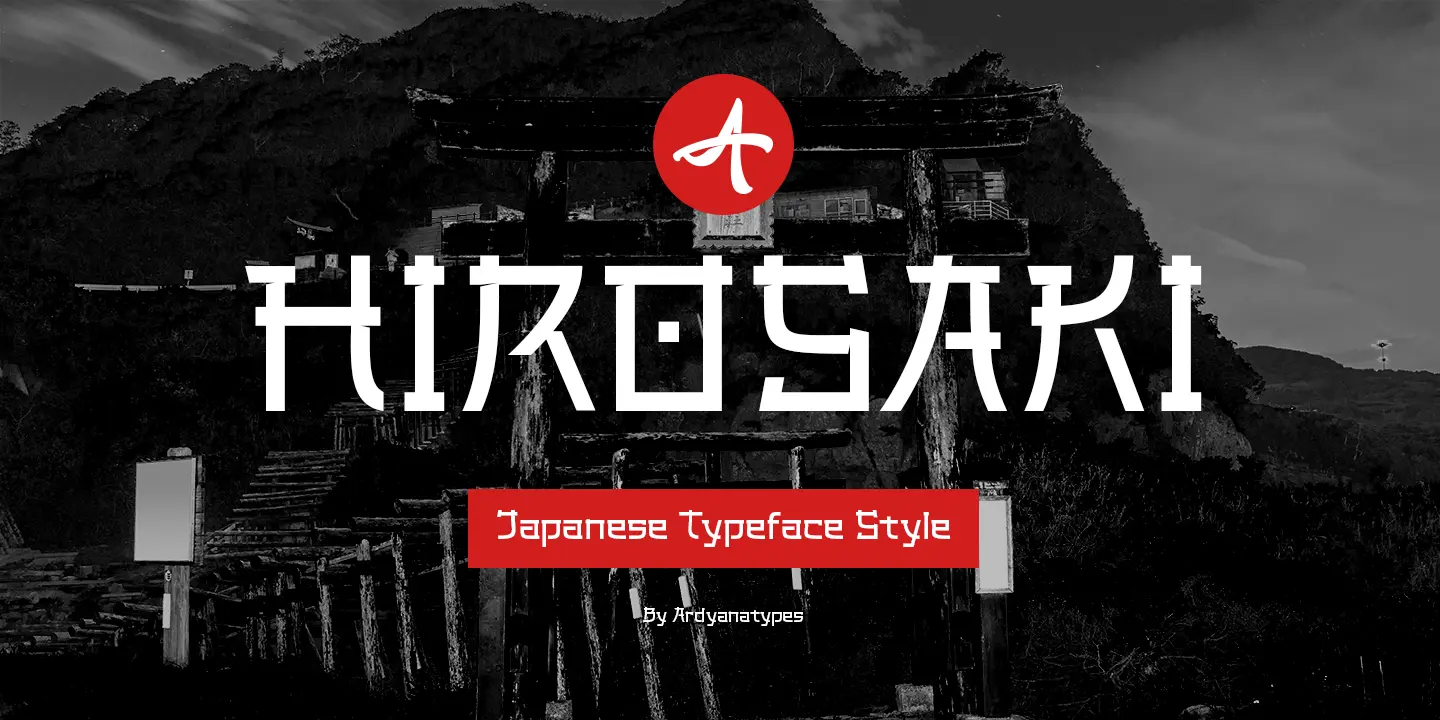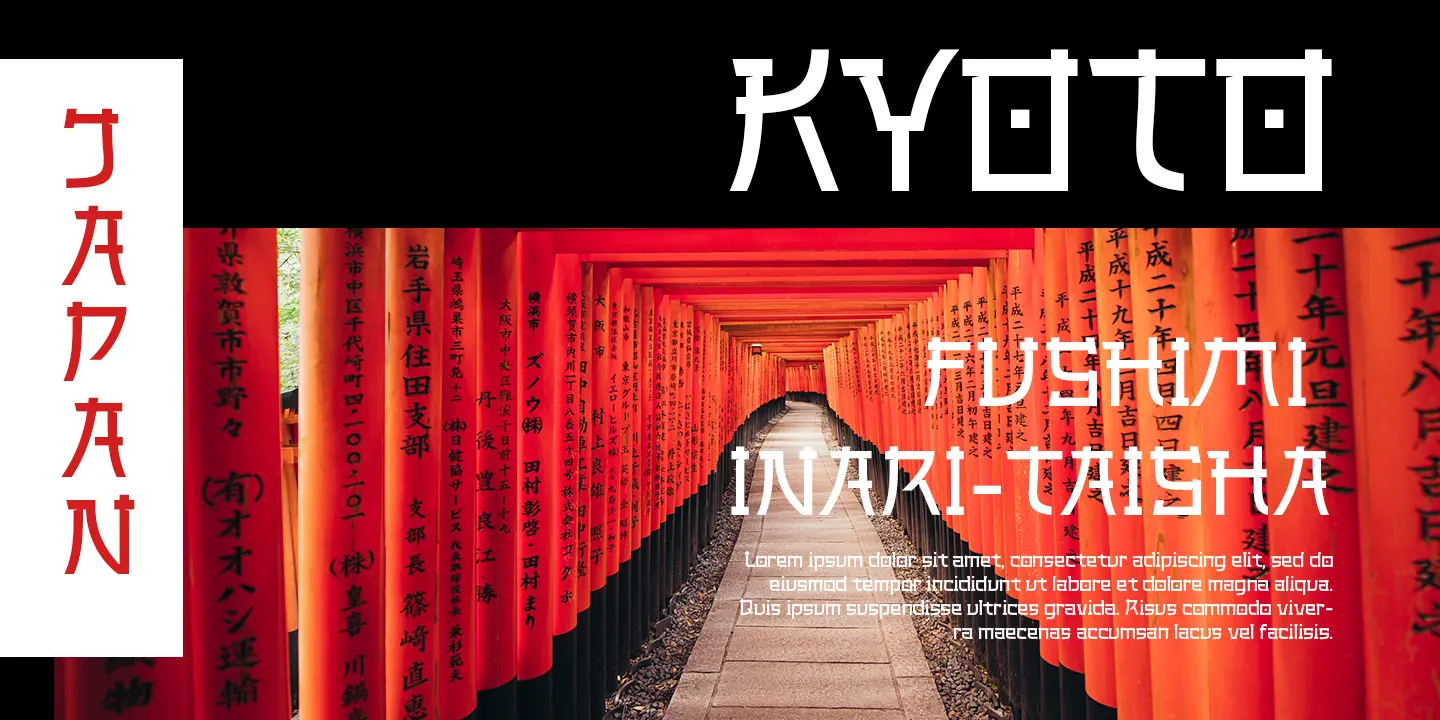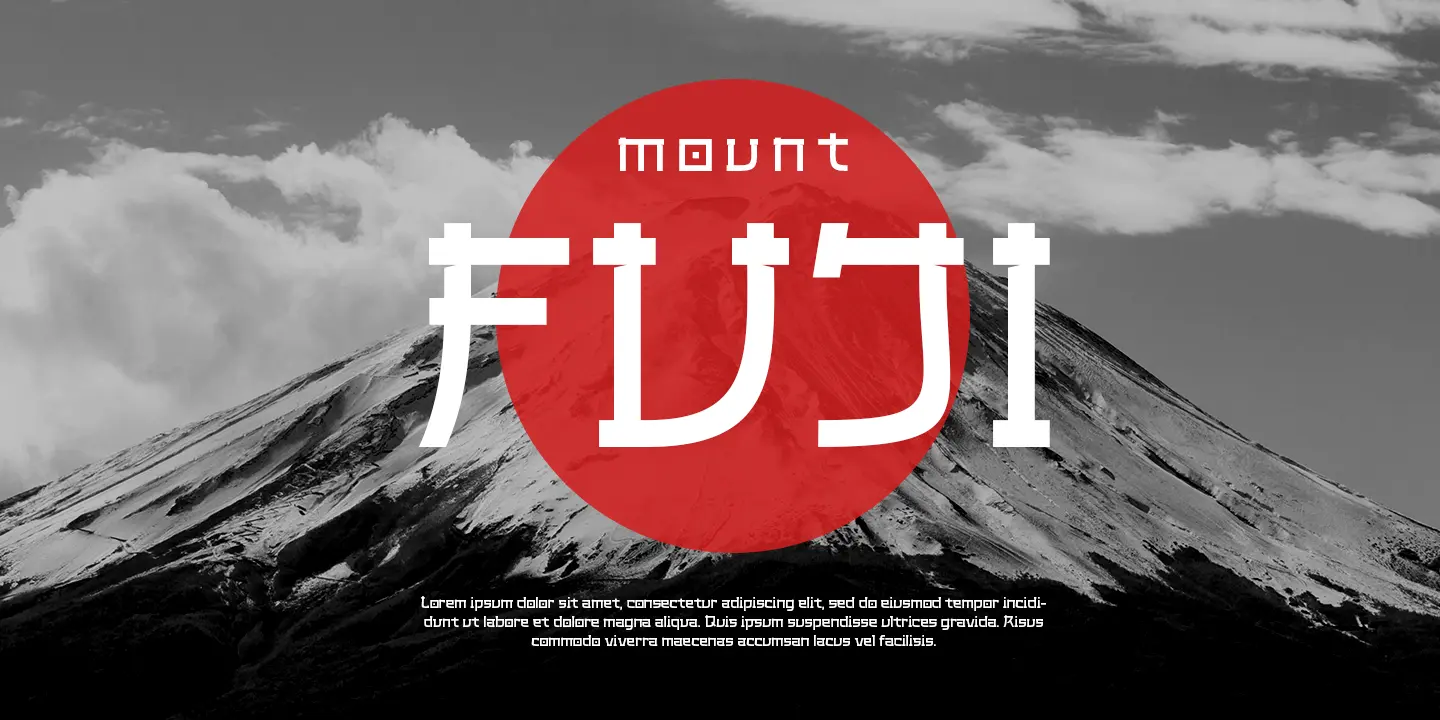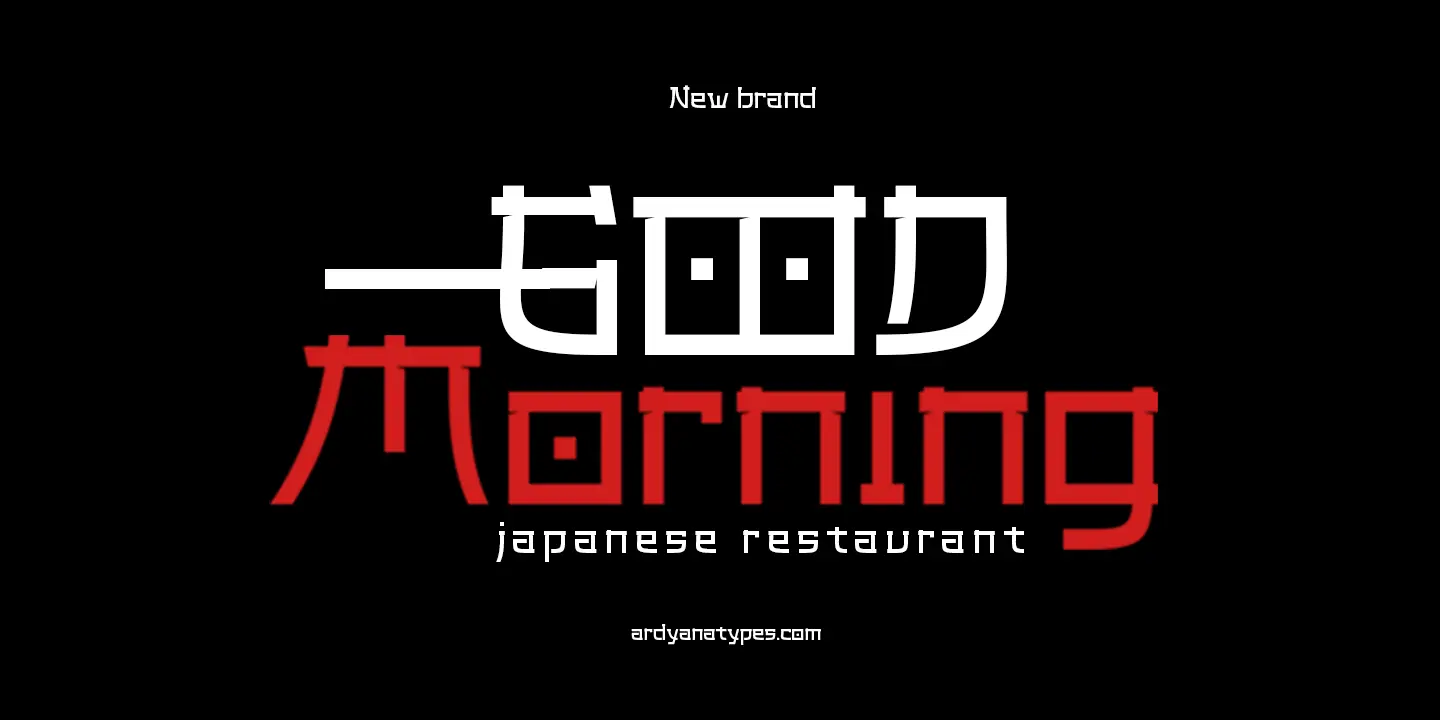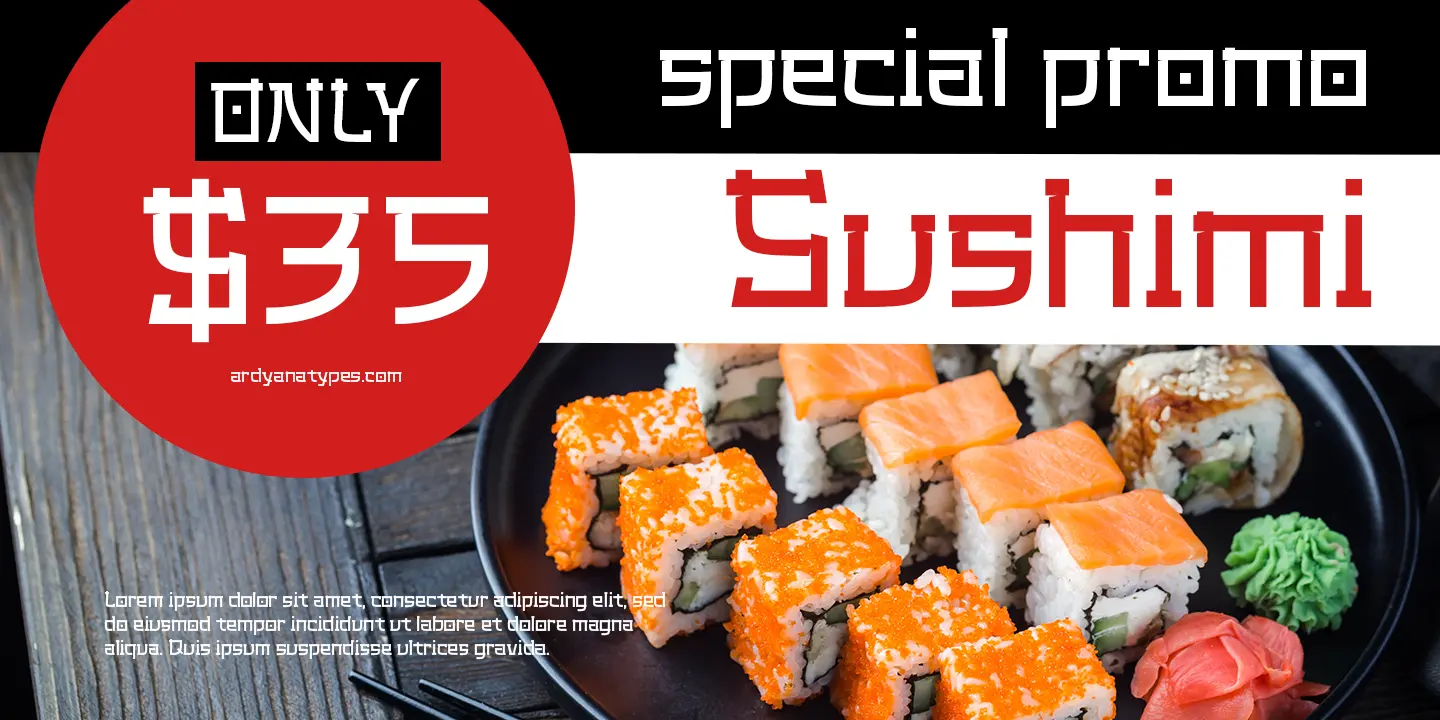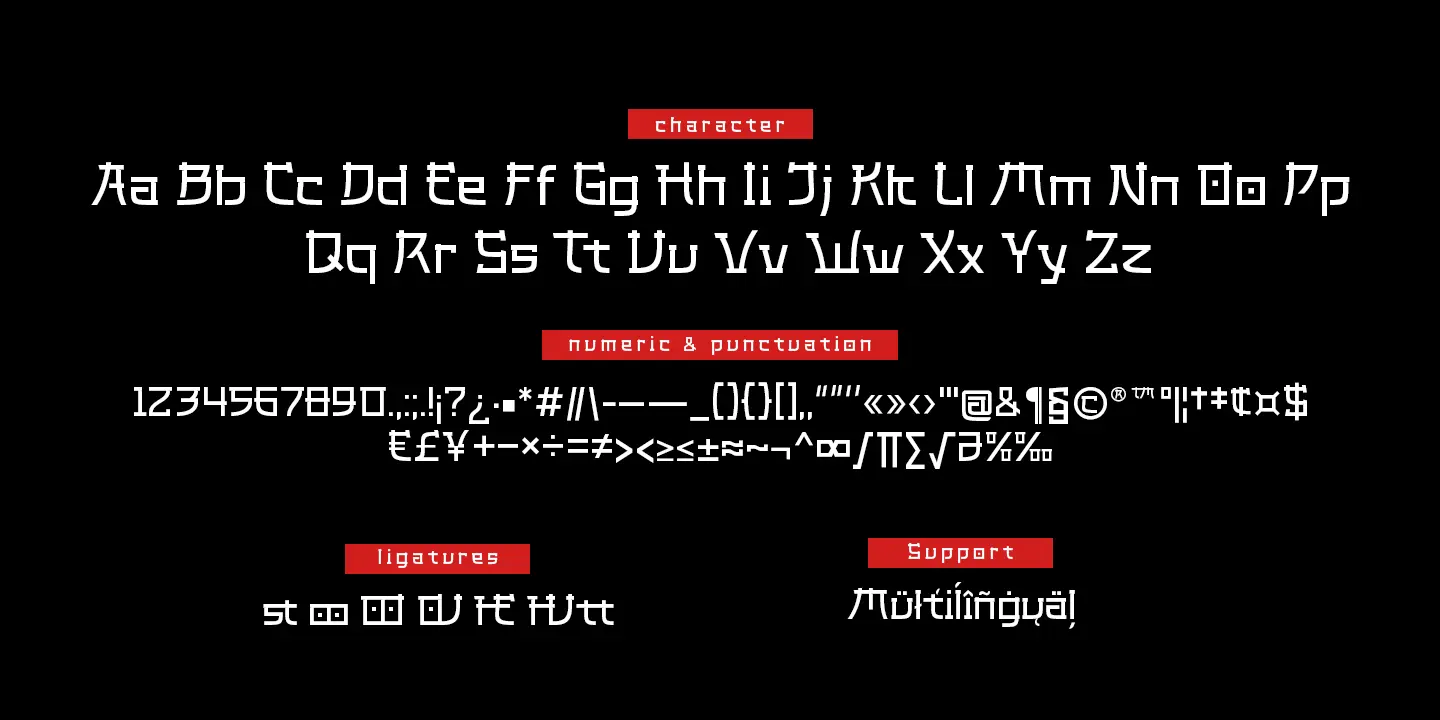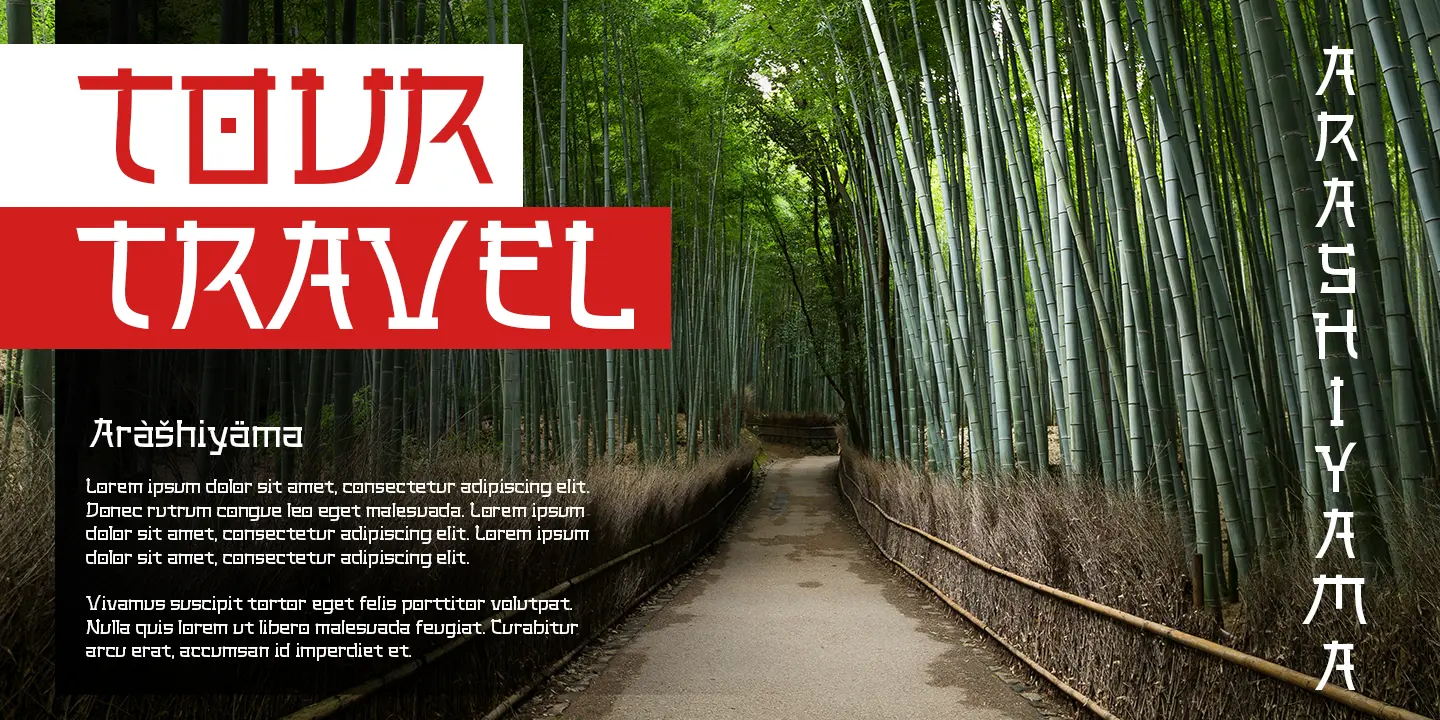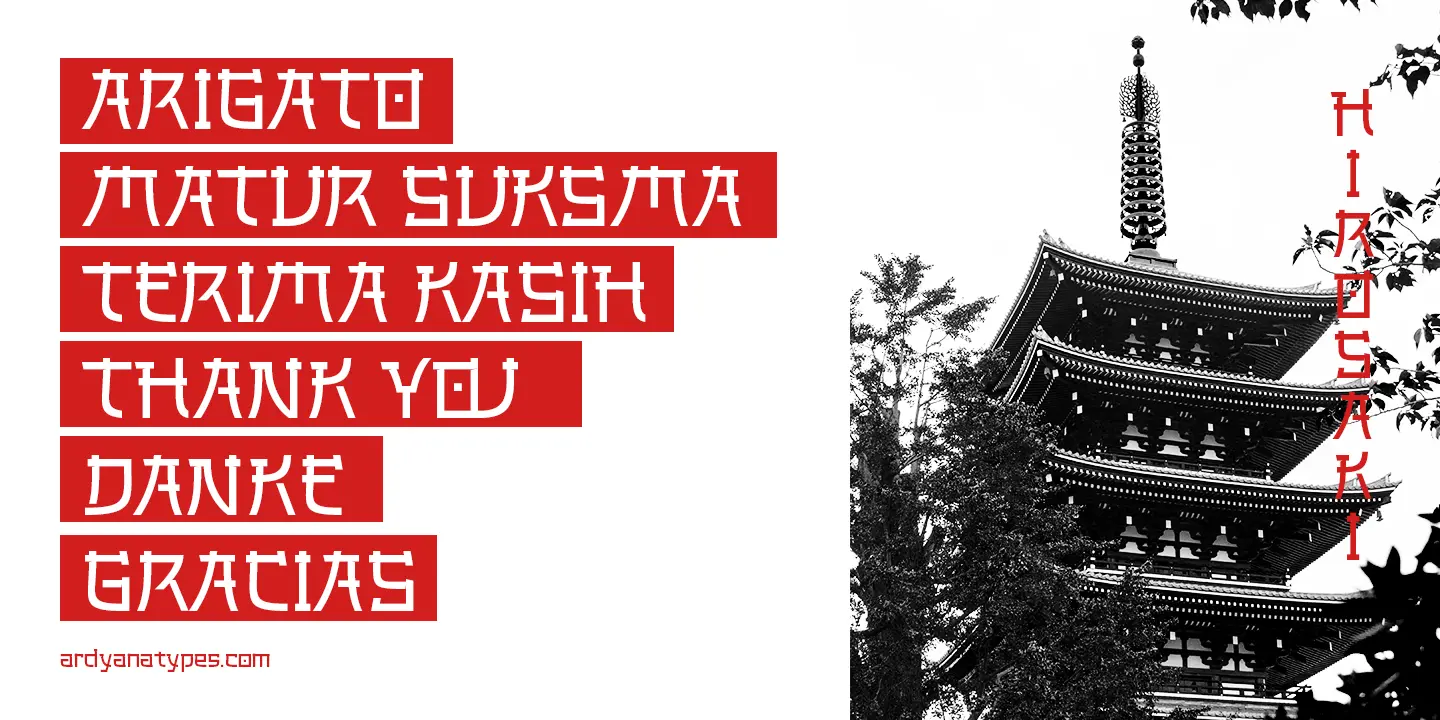
Hirosaki - Japanese Typeface
Introducing Hirosaki Japanese Typeface Style inspired by Japanese letters, which have uniqueness and very thick characteristics that make all designs look unique and have a modern Japanese feel. Hirosaki has its charm, so it will be very suitable to be combined with any style. Have ligatures to add an excellent interactive feel to each design. Hirosaki is also equipped with multilingual support and is very easy to use. Hirosaki is exciting to use in designs such as books, film posters, logos, branding, business cards, and many more that can be combined with Hirosaki.